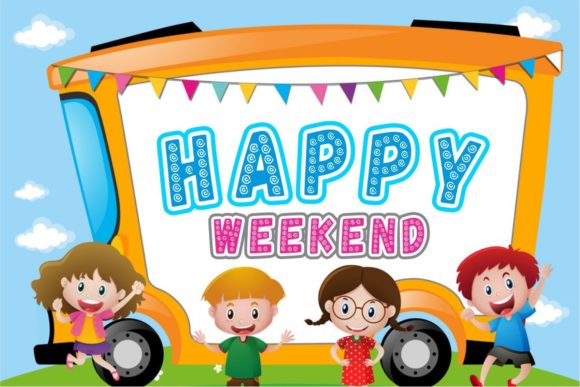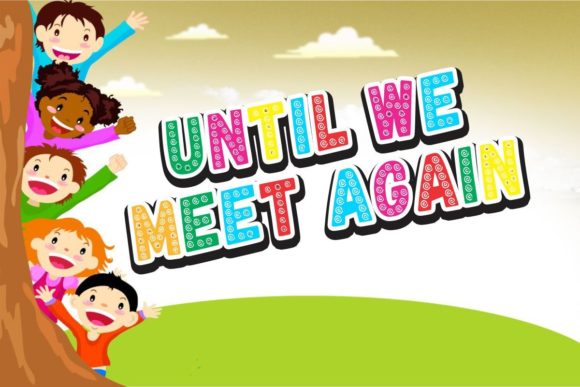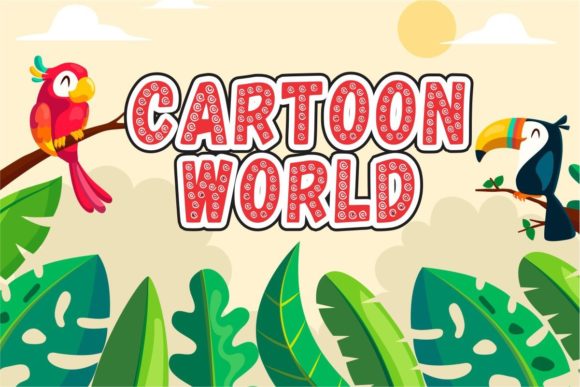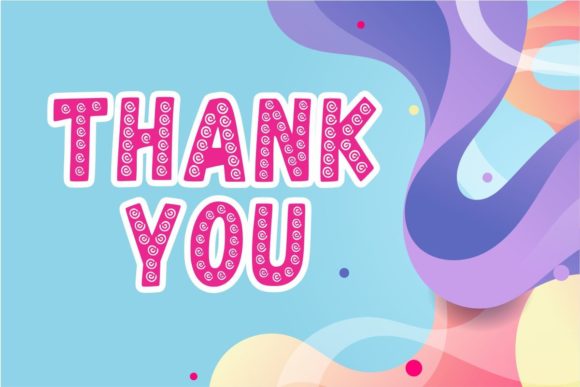
Meet Your New Best Friend: Carton Lollipop Font
Do you remember the joy of unwrapping a colorful lollipop on a hot summer day? The excitement of biting into the crunchy outer shell, only to be greeted by a sweet, sticky surprise inside? For designers, that same sense of wonder and playfulness is exactly what the Carton Lollipop Font is all about.
This cute and fun display font features multiple circles as ornaments, making it a perfect choice for creating projects that bring a smile to people’s faces. Whether you’re designing packaging for a new candy line or crafting a whimsical logo, the Carton Lollipop Font is sure to add a touch of magic to your work. As a valuable tool for designers, it’s a must-have for anyone looking to inject some personality and fun into their designs.
- Unique Characteristics: The Carton Lollipop Font features a playful, whimsical design with rounded edges and bold lines, giving it a distinctive and eye-catching appearance.
Carton Lollipop Font Review
I recently had the chance to work with the Carton Lollipop Font, and I must say it’s a unique and quirky addition to any design project. ✨ The font’s playful, handwritten style is perfect for capturing a carefree and whimsical atmosphere in your designs.
Here are some of the things I liked about the Carton Lollipop Font:
- ✨ Its versatility – the font can be used for a wide range of designs, from children’s products to food labels.
- ✨ The level of customization – the font can be easily customized to fit your design needs, whether it’s changing the color or size.
- ✨ The unique style – the font’s handwritten look adds a touch of personality to your designs.
However, there are some limitations to keep in mind:
- ⚠️ The font may not be suitable for formal or professional designs, as its playful style may come across as unprofessional.
- ⚠️ The font may not be easily readable at very small sizes, which can limit its use in certain design applications.
Overall, I think the Carton Lollipop Font is a great addition to any designer’s toolkit. While it may not be suitable for every project, it’s a fun and versatile font that can add a unique touch to your designs.
Carton Lollipop Font is ideal for creating playful and whimsical designs. Use it for:
- Illustrations and graphics for magazines and blogs.
Remember to experiment with different font sizes, colors, and styles to get the most out of this unique font.
Alternatives to Carton Lollipop Font
Great Vibes is a modern script font that features a playful and elegant feel. It is suitable for use in invitations, posters, and other materials that require a touch of sophistication. Great Vibes is a more refined and polished alternative to Carton Lollipop Font, with a wider range of characters and better legibility.
Carolyna Pro is a modern calligraphy font that features a whimsical and elegant feel. It is suitable for use in invitations, branding, and other materials that require a touch of luxury. Carolyna Pro is a more refined and sophisticated alternative to Carton Lollipop Font, with a wider range of characters and better legibility.